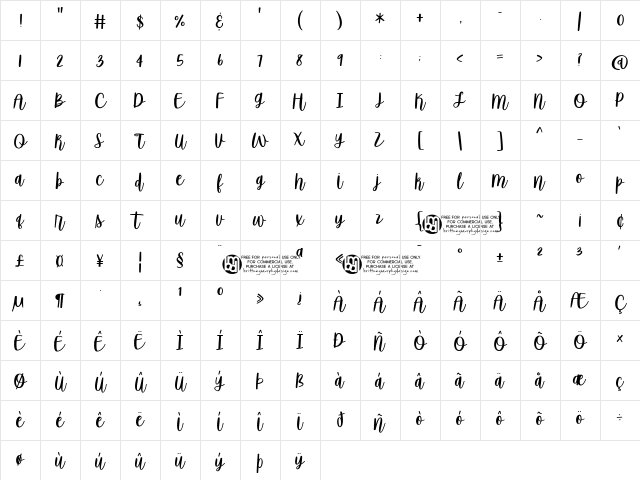
Sugar & Spice Regular
| Foundry | Brittney Murphy |
| Designer | Brittney Murphy |
Design Context for Sugar & Spice Typeface
Sugar & Spice is a composed and adaptable typeface that performs quietly and consistently across a wide range of design contexts.